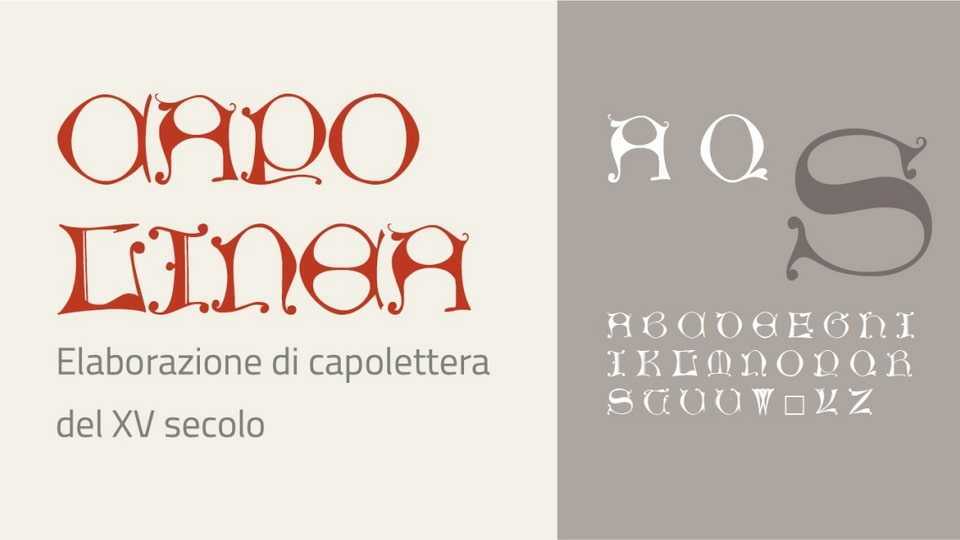
Download Capolineafont, a captivating decorative display typeface meticulously crafted from scans of Günther Zainer’s 15th-century drop caps. This unique typeface pays homage to the craftsmanship of the Renaissance era, infusing a sense of historical elegance into contemporary design.
Designer: Michele Casanova